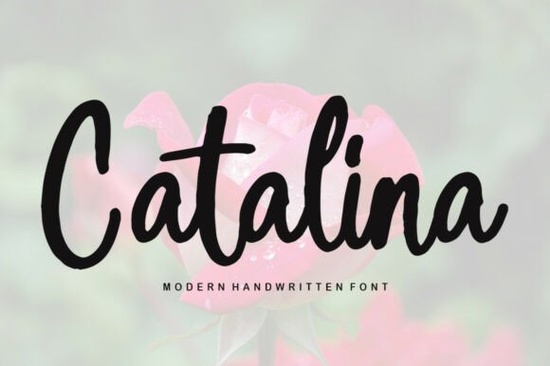
If you're looking for a handwritten font that feels both graceful and personal, Catalina Font is worth exploring. It’s not just another script it has a soft, flowing rhythm that makes your text feel like it was written by hand, with care and intention. Whether you’re designing wedding invitations, creating social media graphics, or adding flair to print-on-demand products, this font brings warmth and elegance to any project.
What kind of projects works best with Catalina Font?
Because of its delicate strokes and natural flow, Catalina fits well in designs where personal touch matters. Think of:
- Invitations and event cards (weddings, baby showers, birthdays)
- Branding for boutique shops, handmade goods, or artisanal cafes
- Social media posts with a cozy, authentic vibe
- Printable planners, journals, or quote cards
- Gift tags, packaging labels, or custom stickers
It’s especially strong when used sparingly one line of text in a clean layout often says more than a full paragraph. The subtle details in the letterforms make it stand out without overwhelming other design elements.
How does Catalina compare to other script fonts?
While many handwritten fonts lean toward boldness or playfulness, Catalina stays on the softer side. It doesn’t shout instead, it whispers with charm. If you’ve tried fonts like Master Signature Font or Mother Fourteen Font, you’ll notice Catalina shares their thoughtful structure but adds a slightly more fluid motion. It’s less rigid than some, yet still readable at small sizes.
For contrast, if you want something bolder and more energetic, you might consider Bouncy Marker Font. But if your goal is timeless beauty with gentle movement, Catalina hits the mark.
Many creators love using it for Etsy listings, stationery lines, or printable wall art. Its refined look helps convey quality and attention to detail important when selling handmade or curated items.
Where can I find similar fonts?
Exploring related collections can help you build a consistent visual language across your designs. For example, pairing Catalina with a simple sans-serif font creates balance and clarity.
Final thoughts: Is Catalina Font right for you?
If you value subtlety, authenticity, and a touch of old-world charm in your typography, then yes this font could become a staple in your toolkit. It’s not flashy, but it’s memorable. And because it’s versatile, it works across platforms and formats.
Try it on a mockup first. See how it looks with your brand colors, background textures, or layout styles. Often, the best test is seeing it in action not just on screen, but in real-life printed form.